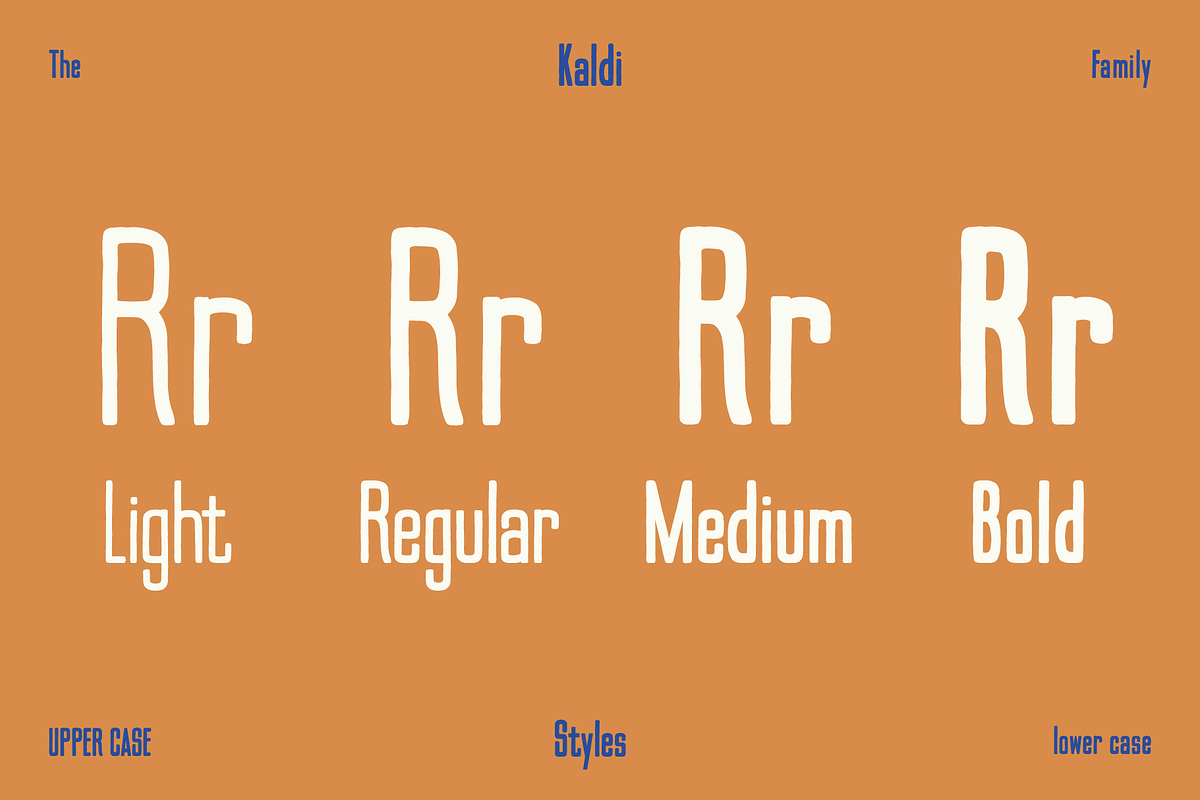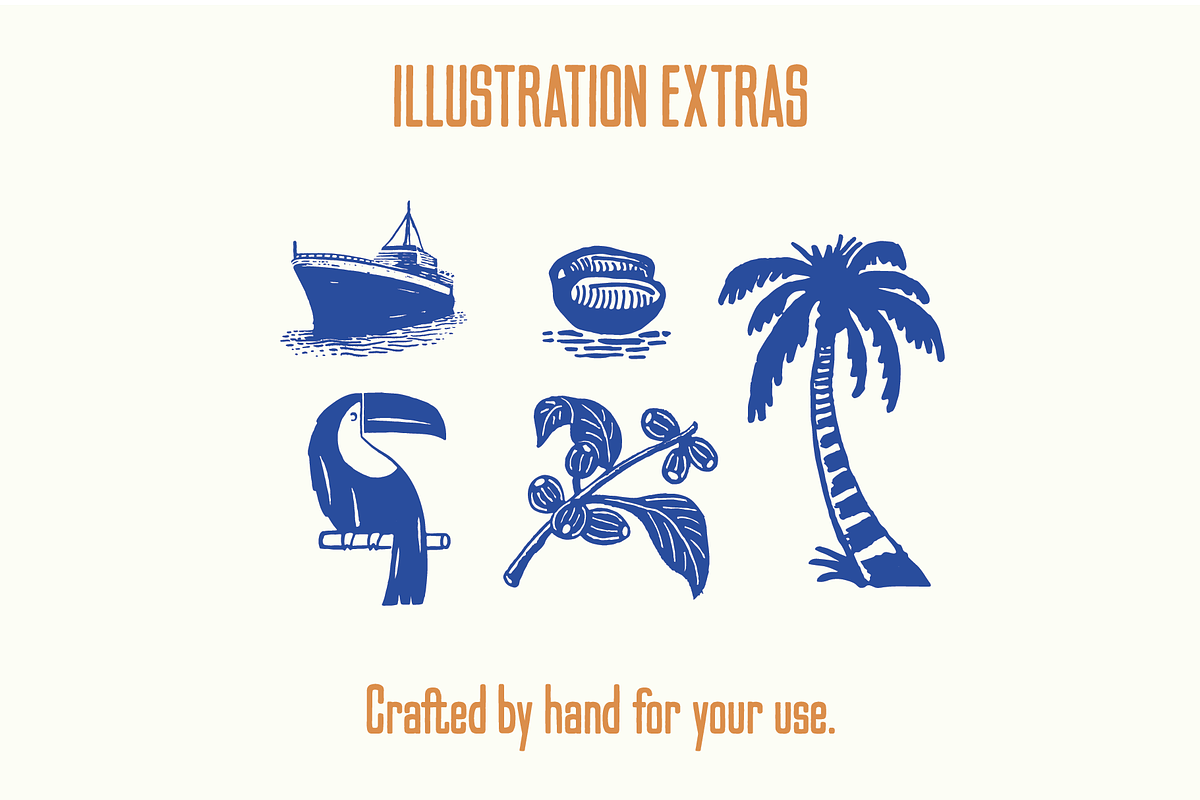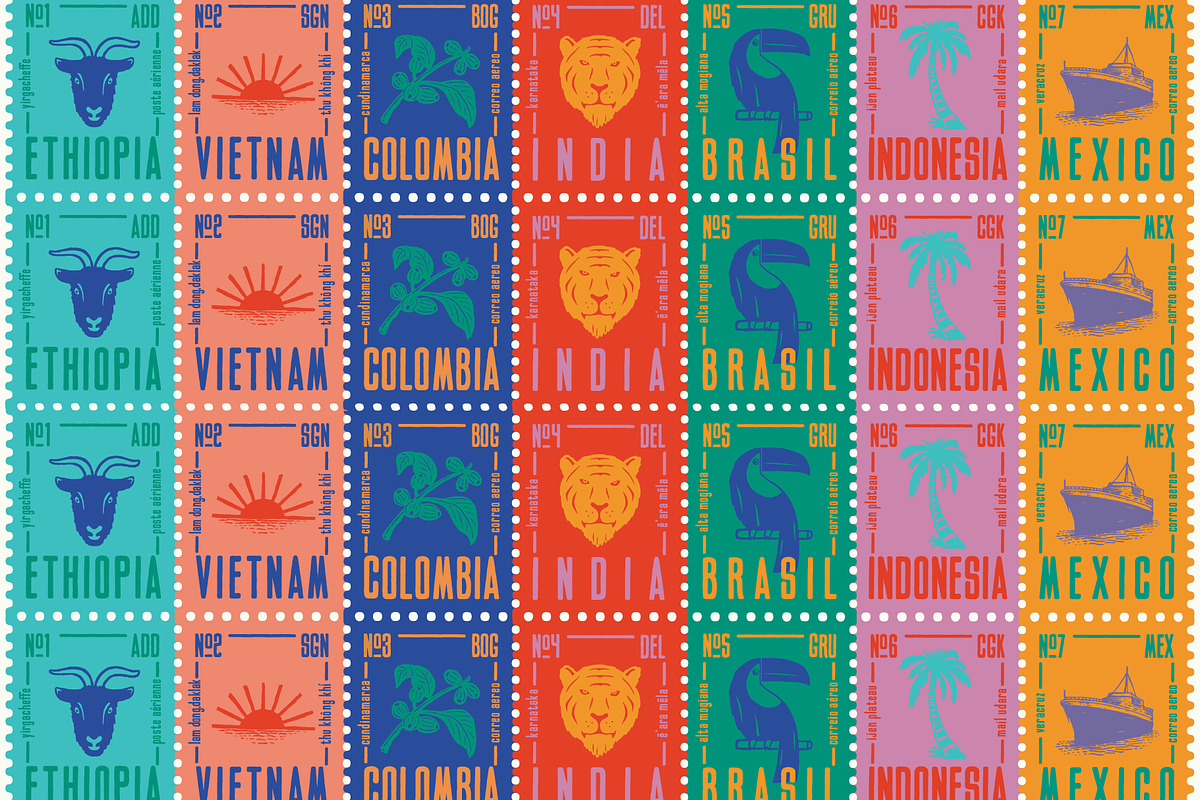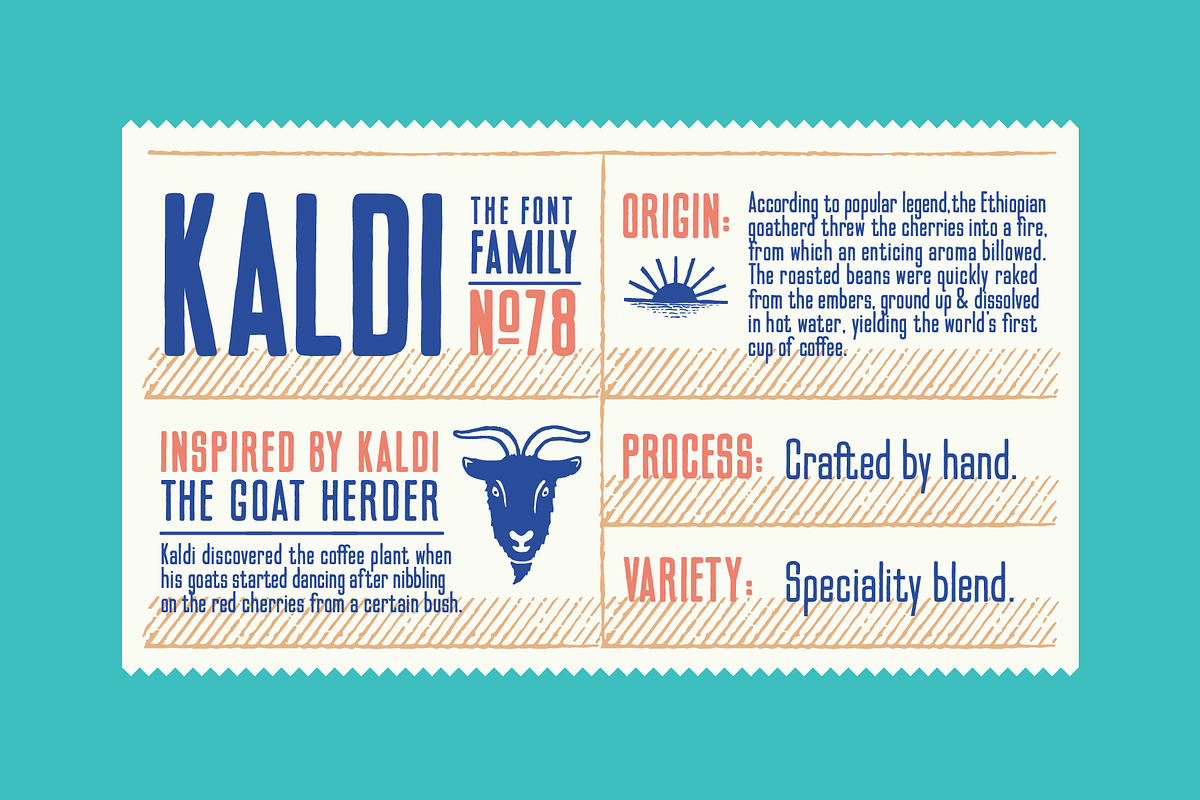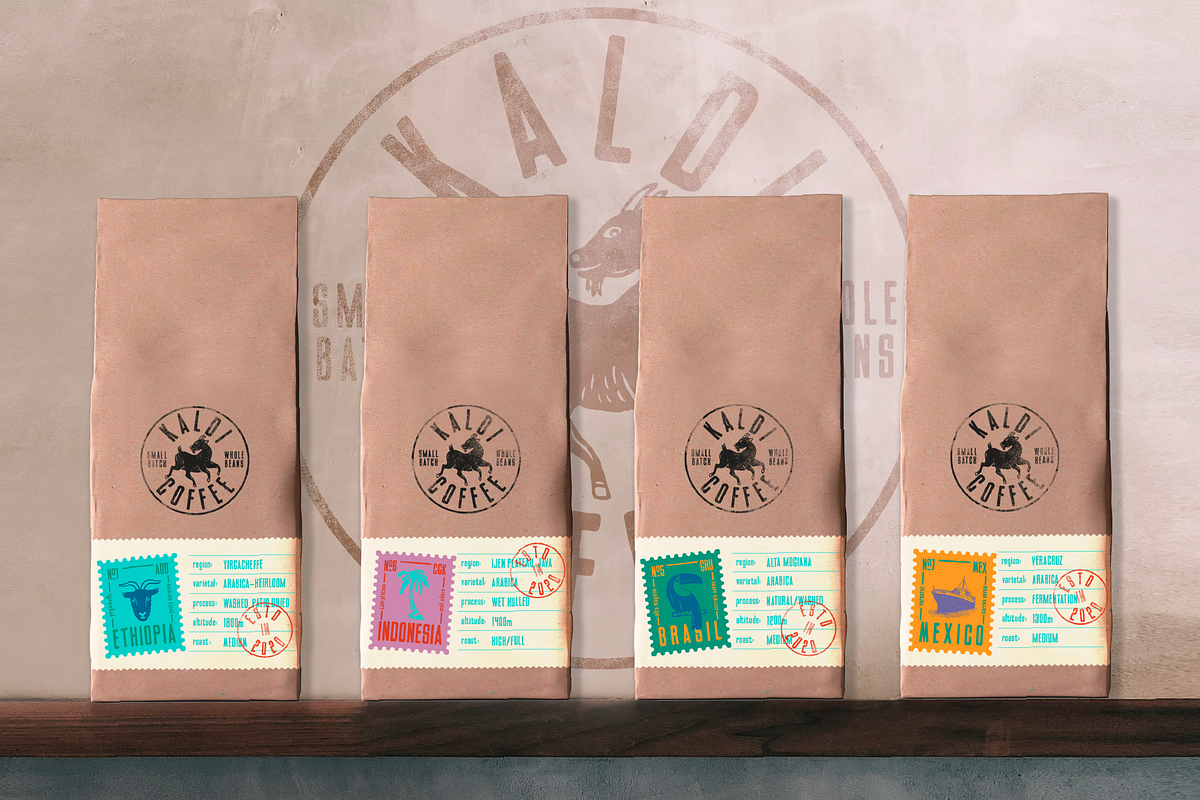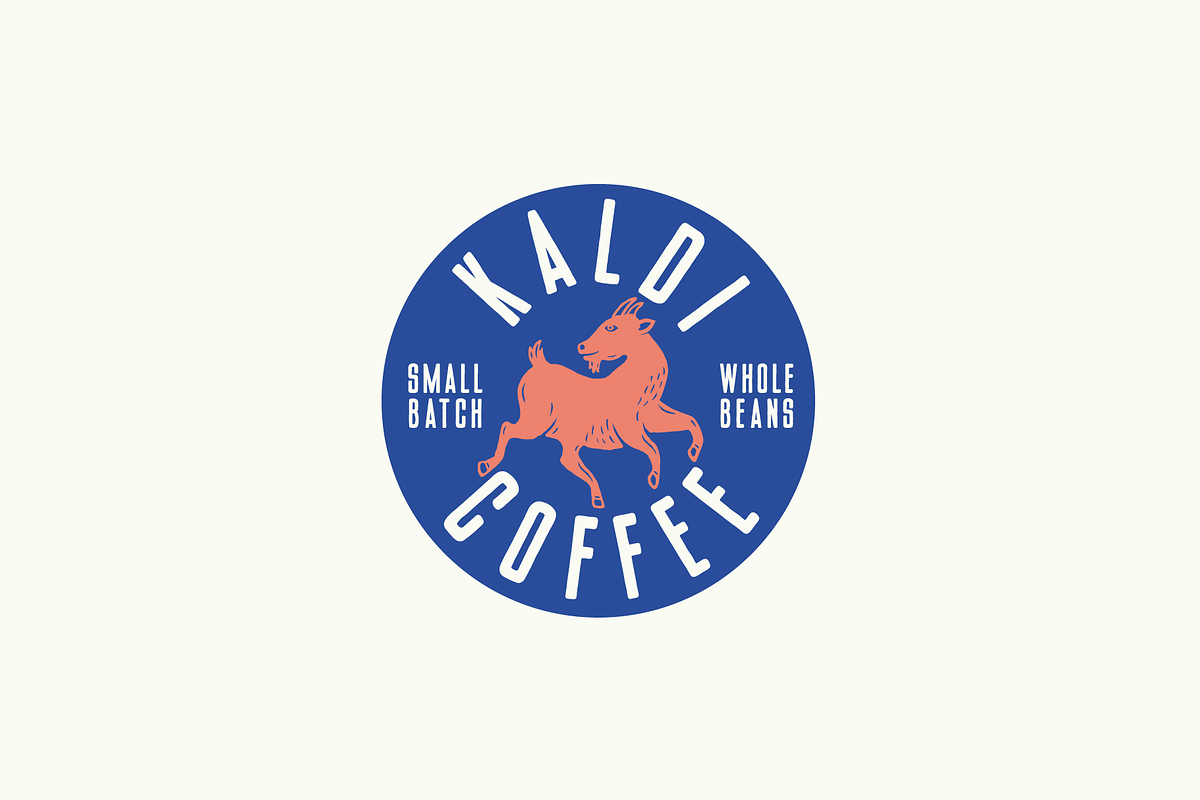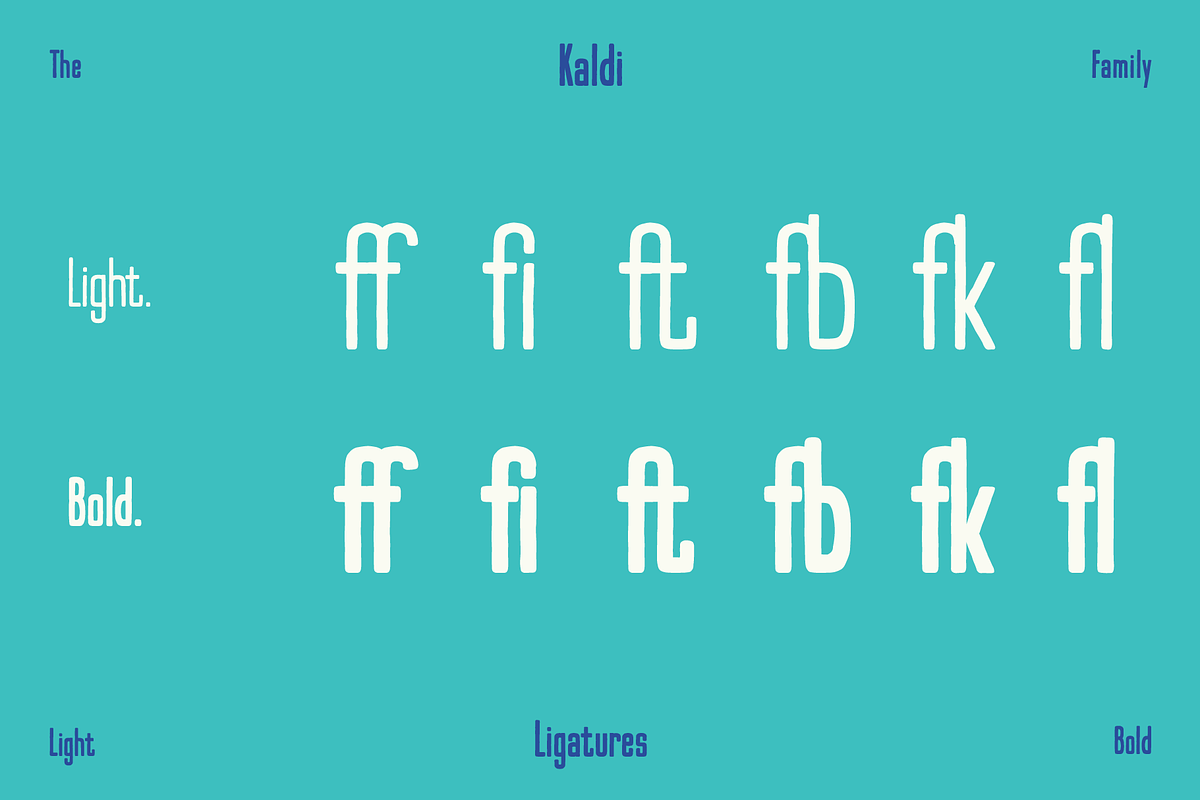
Kaldi Font Family
Kaldi is a tall condensed typeface that has gone through a natural process of craft and refinement to create a specialty blend. This font family is inspired by the legend of Kaldi – the goat herder who discovered the coffee plant when his goats started dancing after eating coffee cherries.
- Kaldi Light
- Kaldi Regular
- Kaldi Medium
- Kaldi Bold